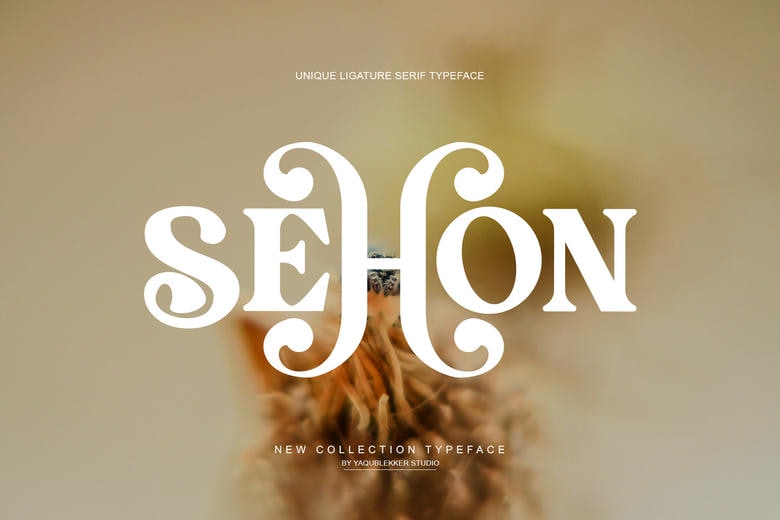
Sehon Font
Sehon is an elegant and classy serif typeface. This font is both modern and nostalgic and works great for logos, magazine, social media. Already matched up and ready to be used together for your next design! For those of you who are needing a touch of elegant, stylish, classy, chic and modernity for your designs.
Sehon Serif Font